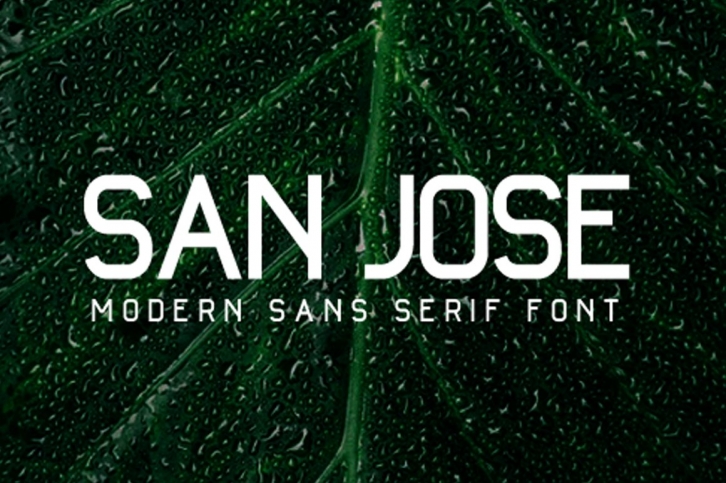
SAN JOSE Modern Sans Serif is a gorgeous font that was realeased on January 12, 2021. The font can be used in many style contexts and design environments. Perfect for invitations, magazines, websites, logos, and more! It was designed by Gatra Std and the file size is 12.68 MB. Thanks for checking out this font!